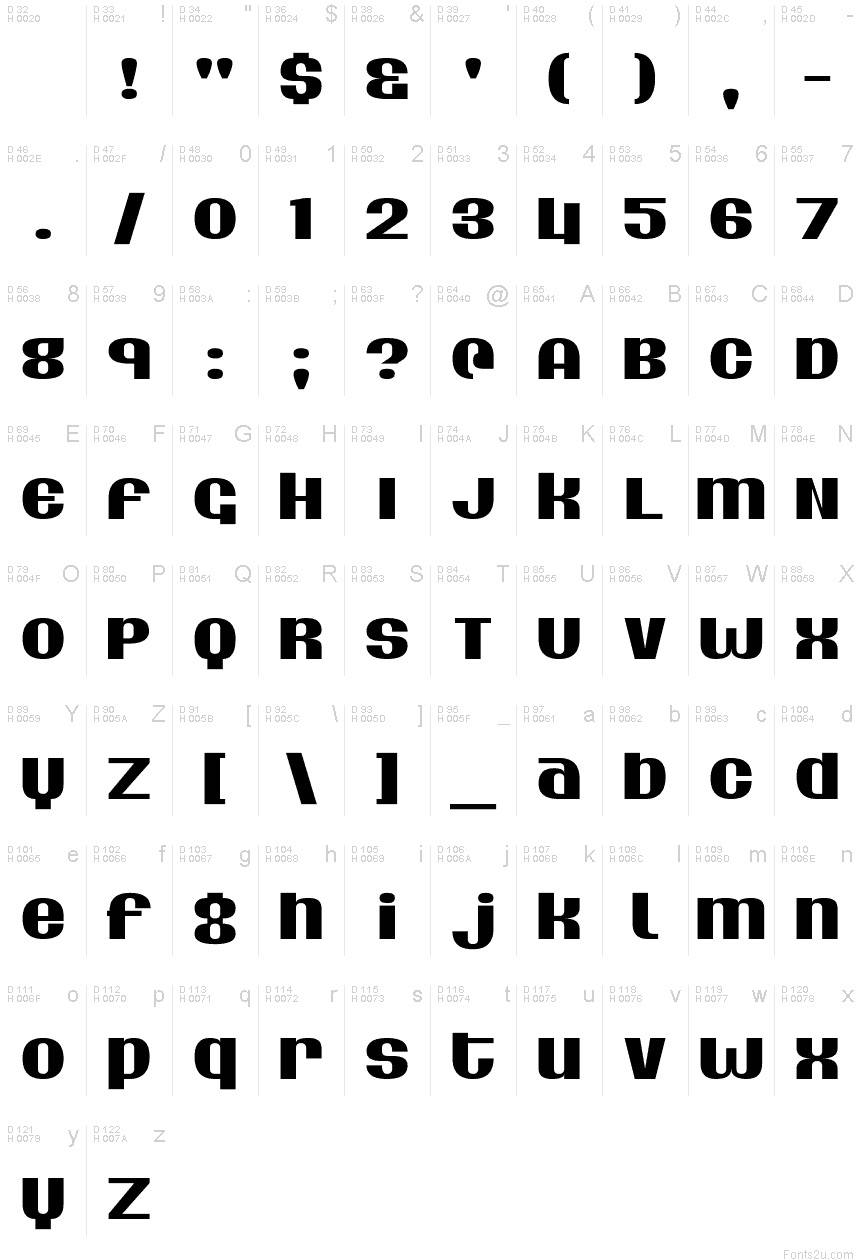
Silver Dollar
Silver Dollar font by Darren Rigby of Starving-4 Entertainment is a free decorative sans serif typeface that turns every word into a stamp of attitude. Dense vertical strokes, exaggerated curves, and narrow spacing pack the letters tight, so your text lands like a bold logo even at a glance. Those chunky shapes with carved-out counters give it a punchy, almost stencil-like rhythm that feels both industrial and a bit playful.
Using Silver Dollar, short phrases and names become graphic elements on their own, making this free font a natural fit for posters, logos, packaging, event flyers, album covers, and bold web headers. It shines in big sizes where the thick blocks and sculpted gaps can really breathe. For a clean hierarchy, pair Silver Dollar headlines with a simple, open sans serif for body copy to keep the focus on its compact, heavy-hitting style.